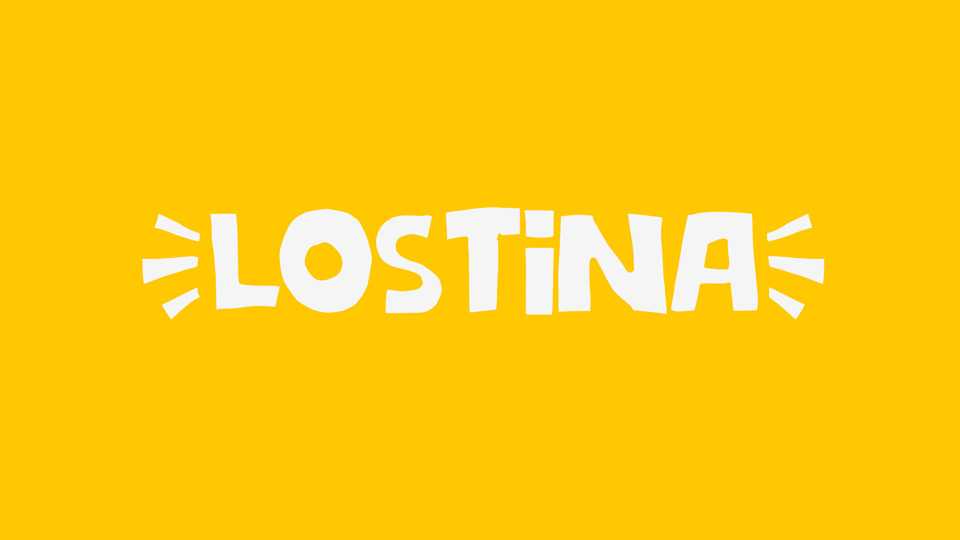
Download Lostina font, a chunky and playful typeface that injects your designs with a hearty dose of vibrant fun and lively impact. Lostina font features a robust and quirky design, with each letter exuding a sense of bold energy.
Designer: Linafis Studio